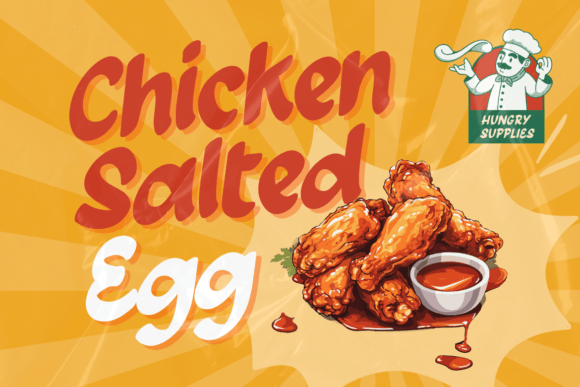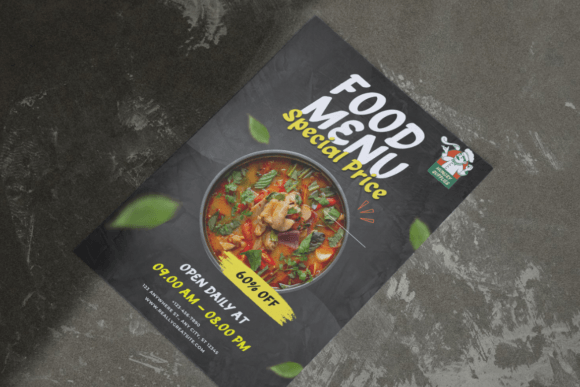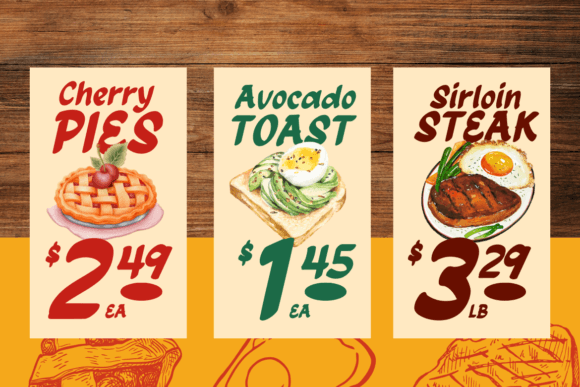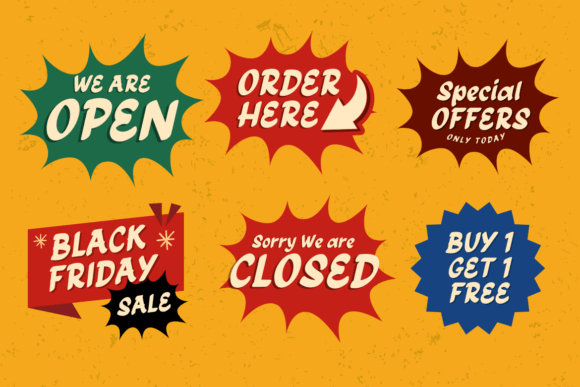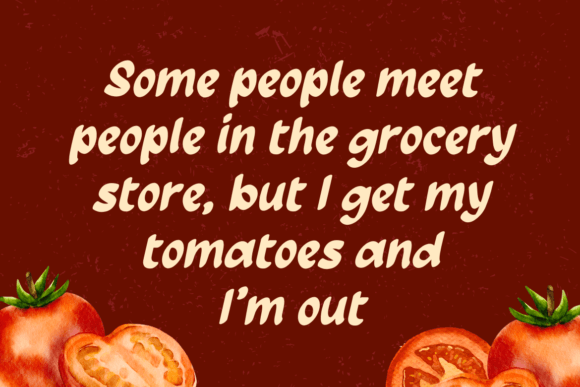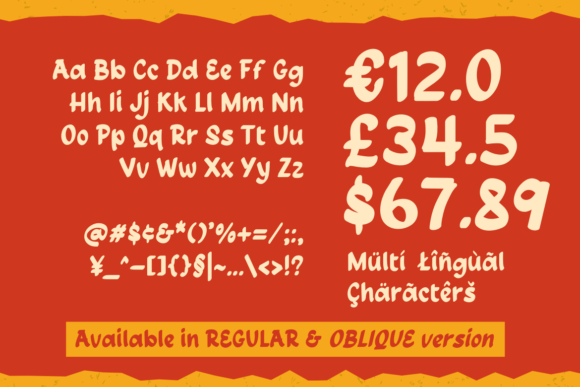
Introduction to Grosir Font
Have you ever been working on a creative project, staring at a blank canvas or screen, trying to find the perfect font to bring your idea to life? It’s that moment of frustration and excitement when you know the right font can make all the difference.
That’s exactly why we’re thrilled to introduce our new font collection, Grosir Font, inspired by vintage manually crafted sign paint from the grocery store. This unique design resource offers a high-quality, nostalgic feel that’s perfect for any creative project, from social media promos to branding materials.
Grosir Font – Key Features
- Unique and stylish font with a transparent background for seamless integration
- Perfect for designers and artists looking for a distinctive and creative font for their next project
Honest Review: Grosir Font
I’ve been exploring design resources for a while now, and I stumbled upon Grosir Font. Initially, I was drawn to its high-quality collection of fonts. With a transparent background, it’s easy to use these fonts in any creative project without worrying about unwanted backgrounds.
Here are some things that work well for Grosir Font: ✨
- Wide selection of fonts, suitable for various design projects
- High-quality fonts that can elevate any design
Overall, I’m impressed with Grosir Font’s collection and user experience. While it may not be perfect, it’s a solid design resource for anyone looking for high-quality fonts. I appreciate the transparent background and the ease of use, making it a great addition to any creative project.
Grosir Font: A Design Resource for Your Creative Project
Tips for Getting the Most Out of Grosir Font
Use Grosir Font with a transparent background to create a clean and minimalist design. You can also experiment with different font sizes and colors to add visual interest to your project.
Common Use Cases for Grosir Font
Grosir Font is perfect for creating high-quality designs for your creative project. Use it for logos, business cards, brochures, and other marketing materials. You can also use it for free download and share it with others.